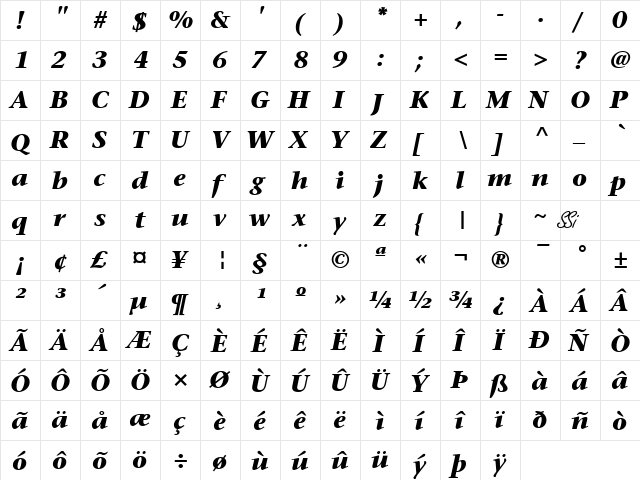
Mesouran Serif Black SSi Bold Italic Font Preview
Design Context for Mesouran Serif Black SSi Typeface
Mesouran Serif Black SSi brings classic typographic sensibility to the table — its serifs and measured letterforms reflect centuries of print heritage. Its italic angle brings a sense of urgency and motion to the letterforms. Its bold stroke weight gives it real presence on the page.